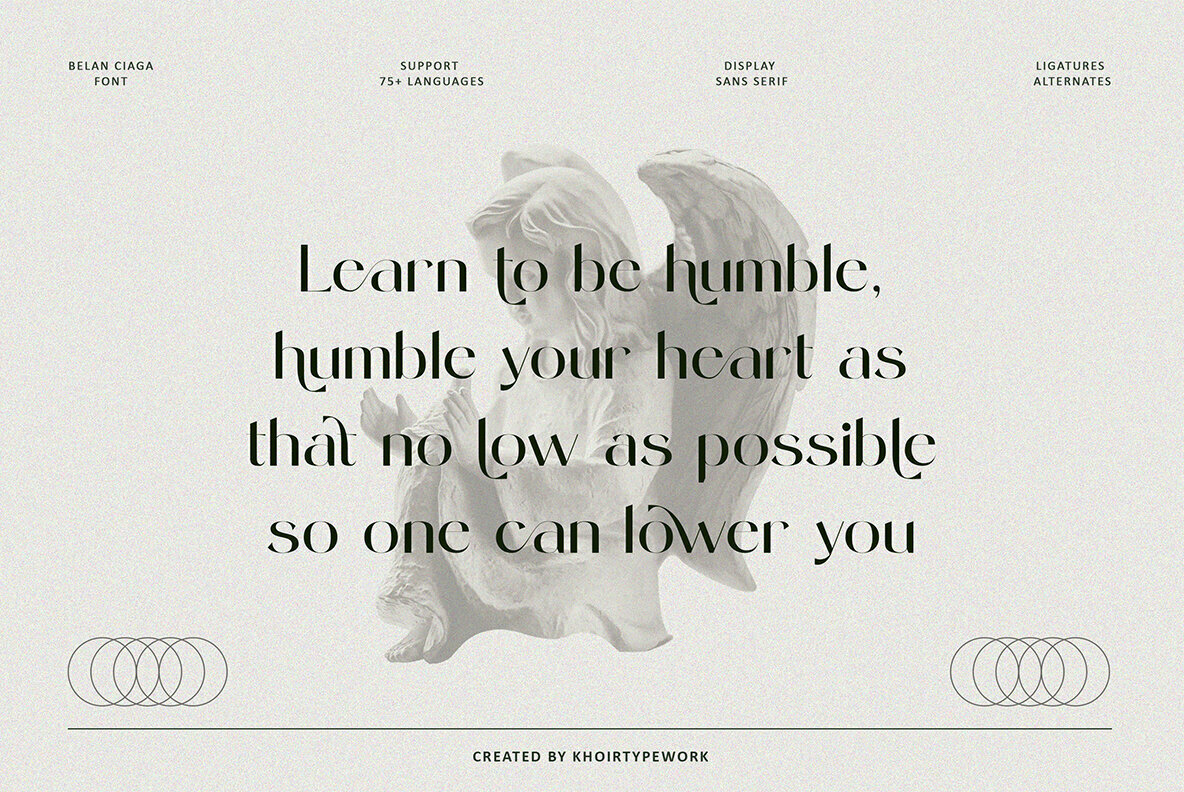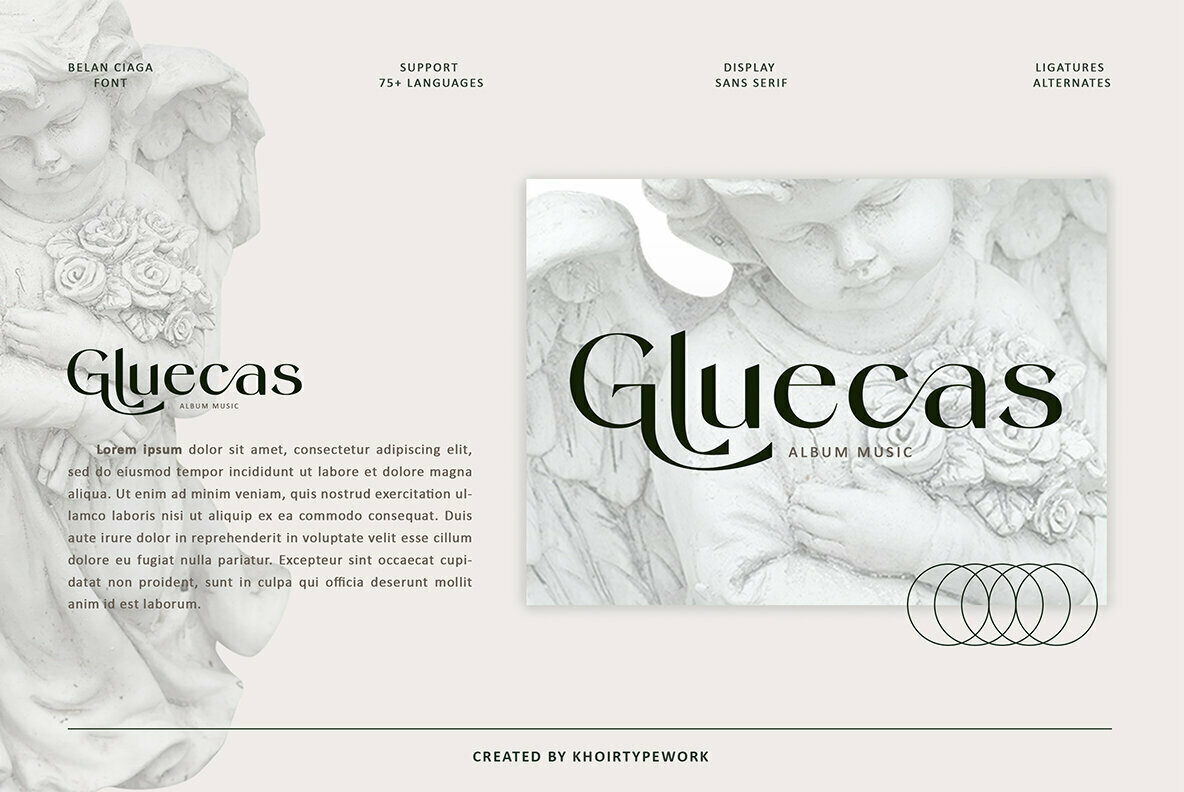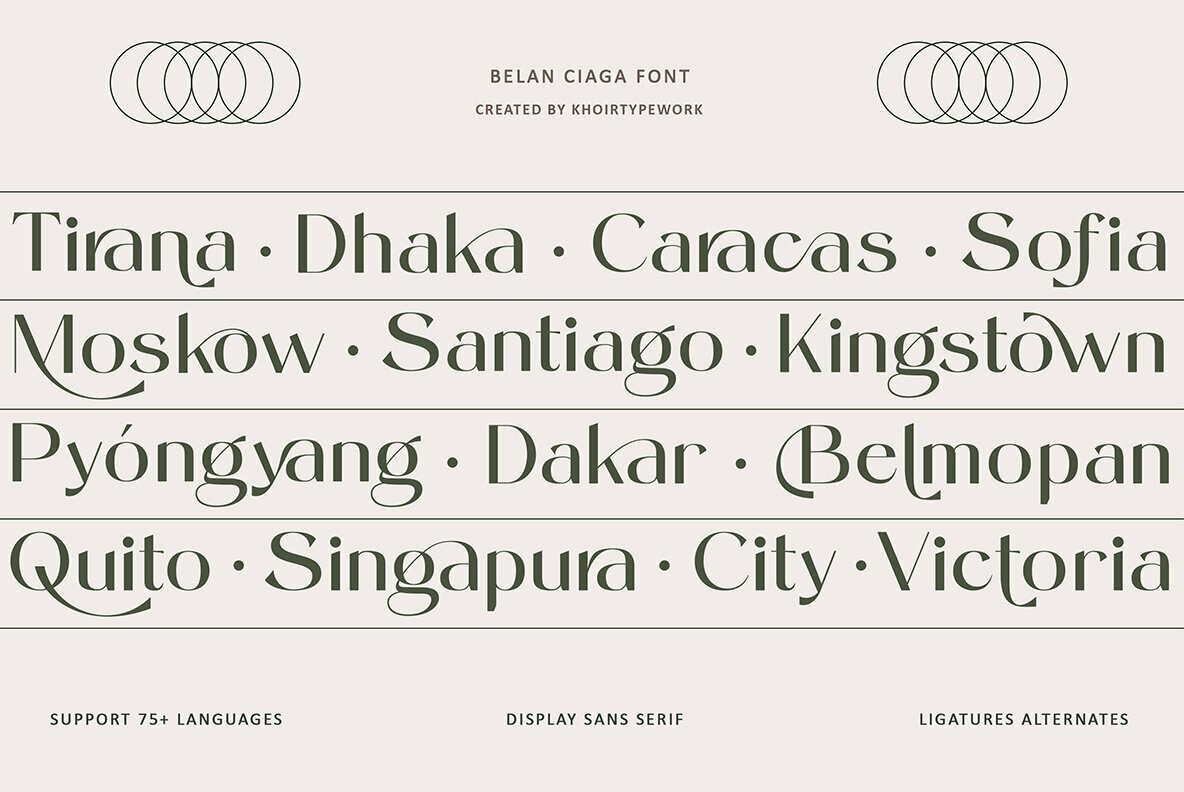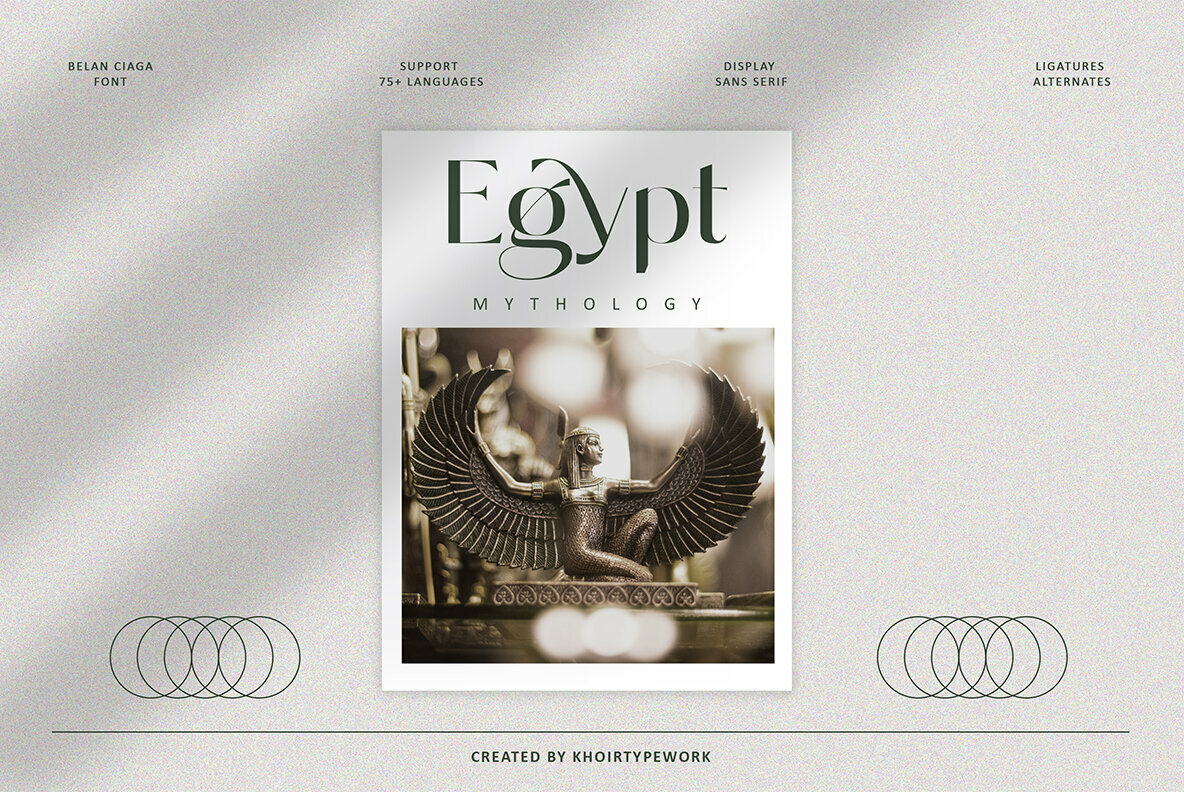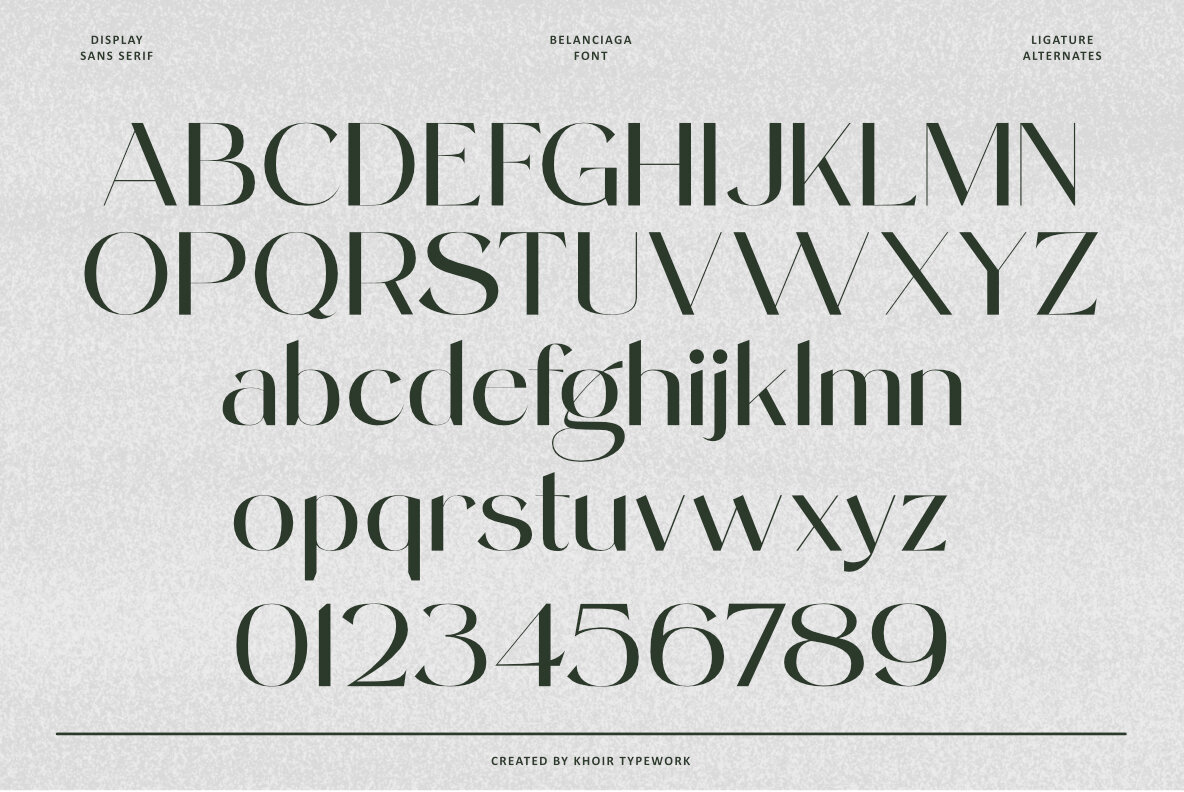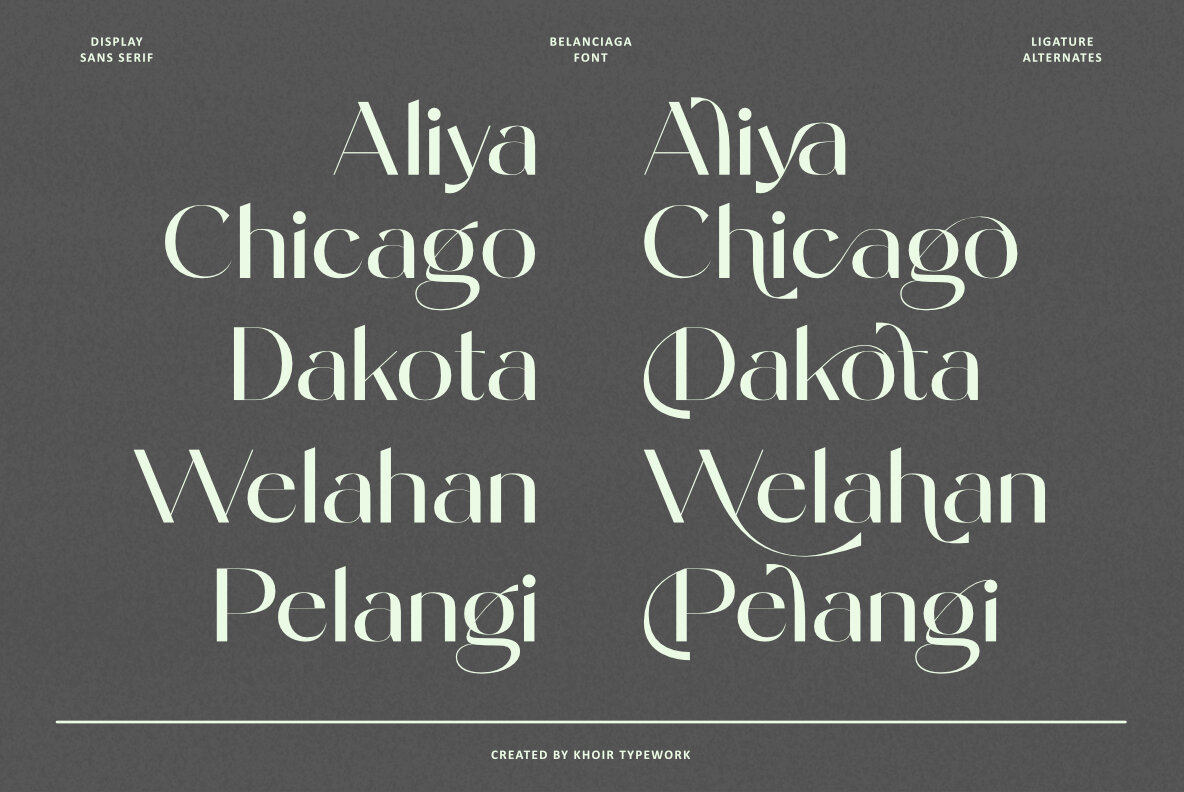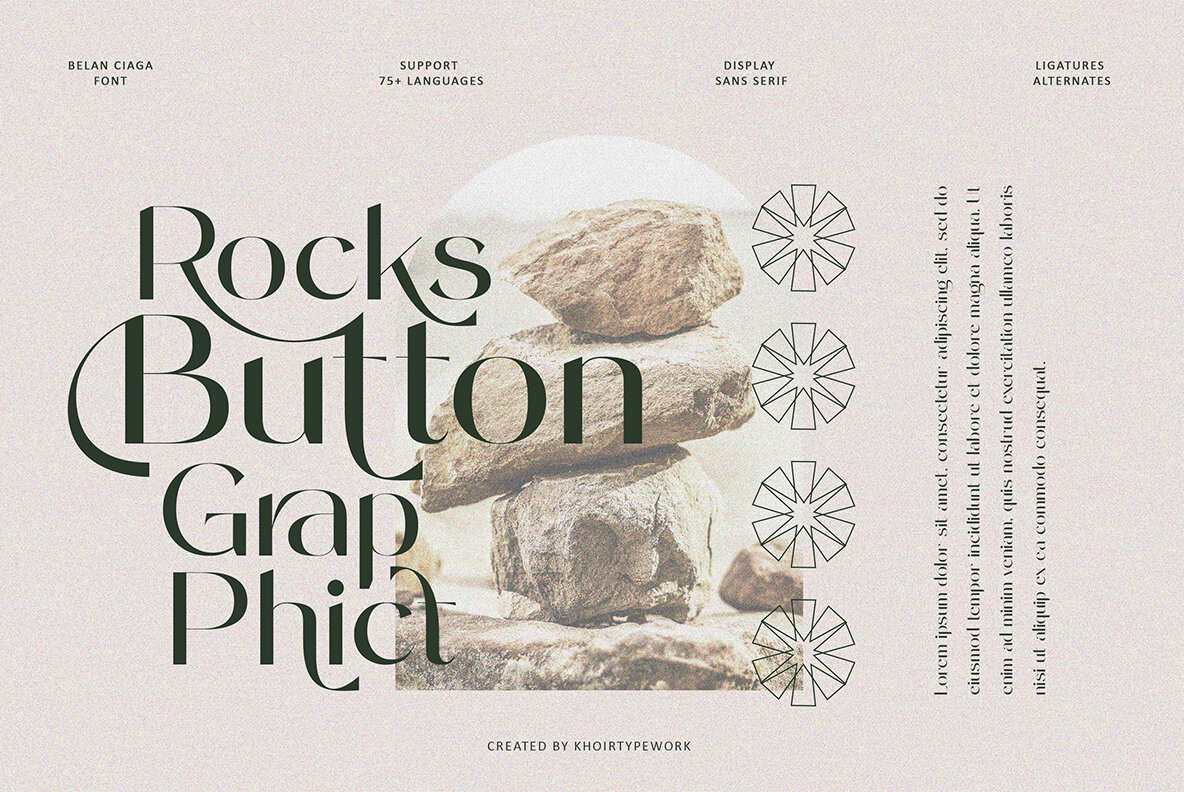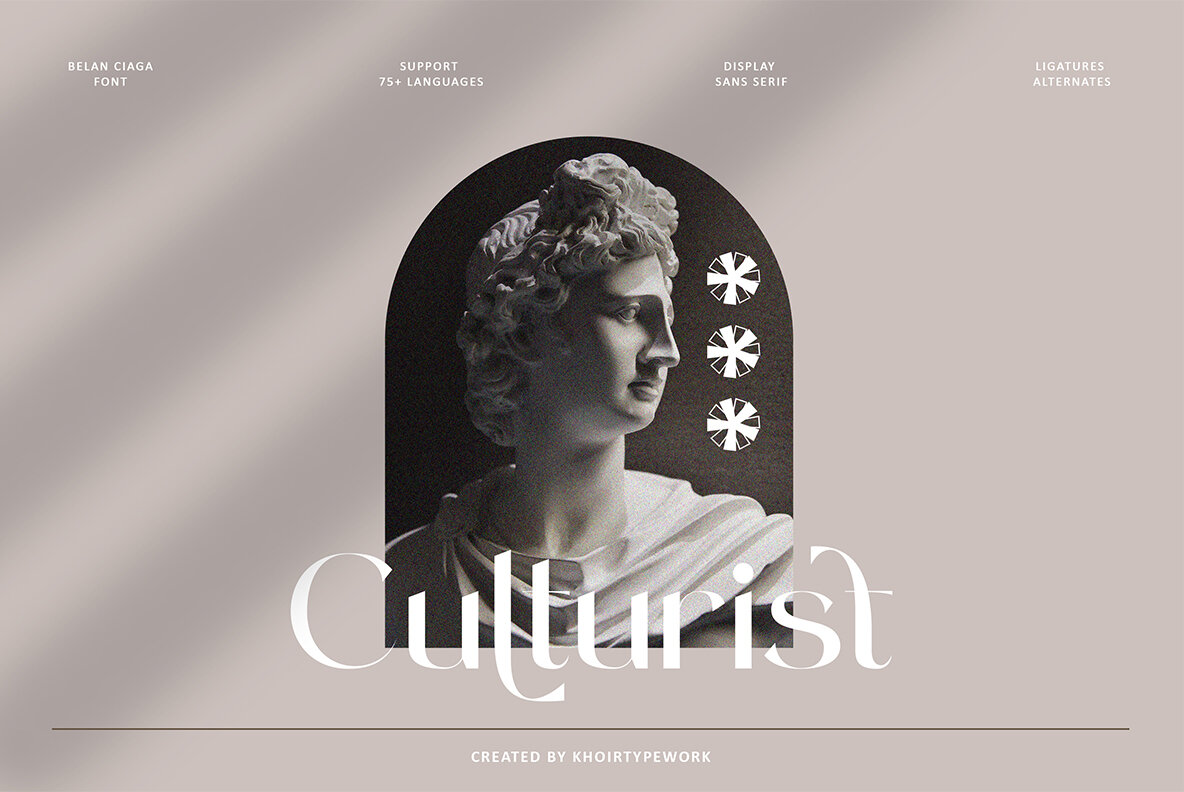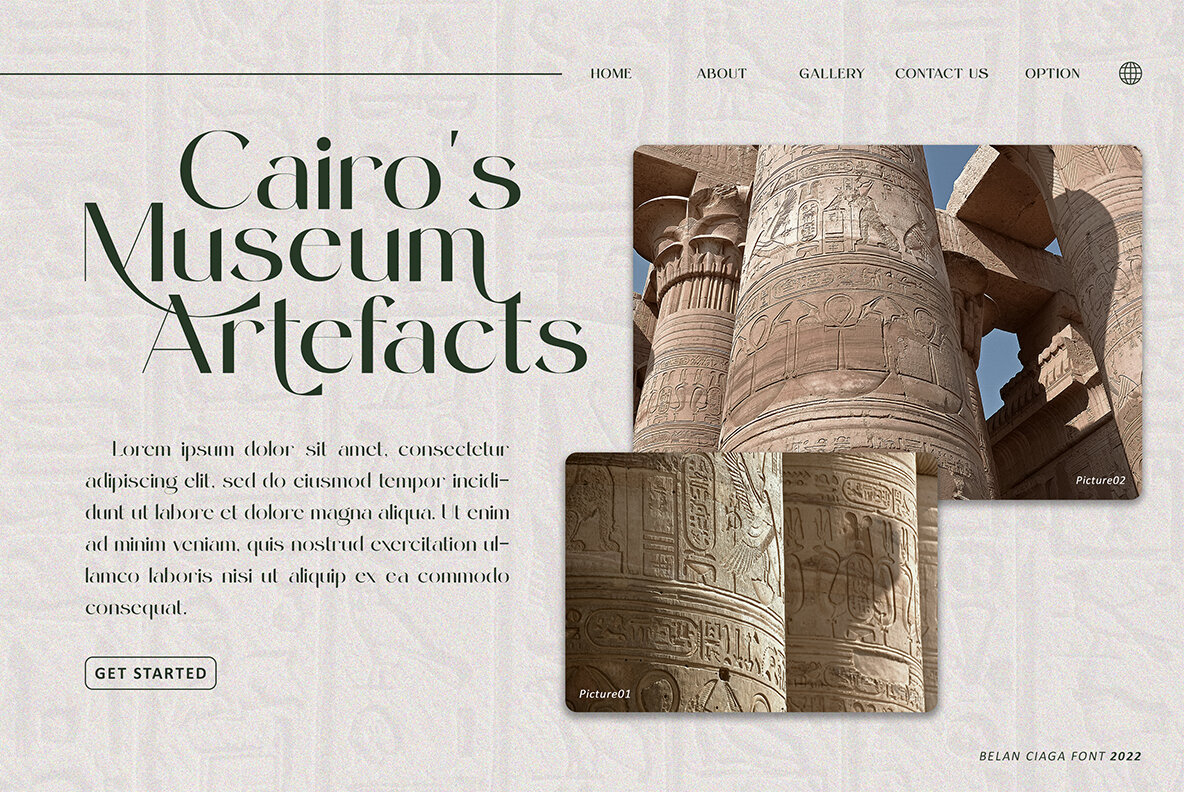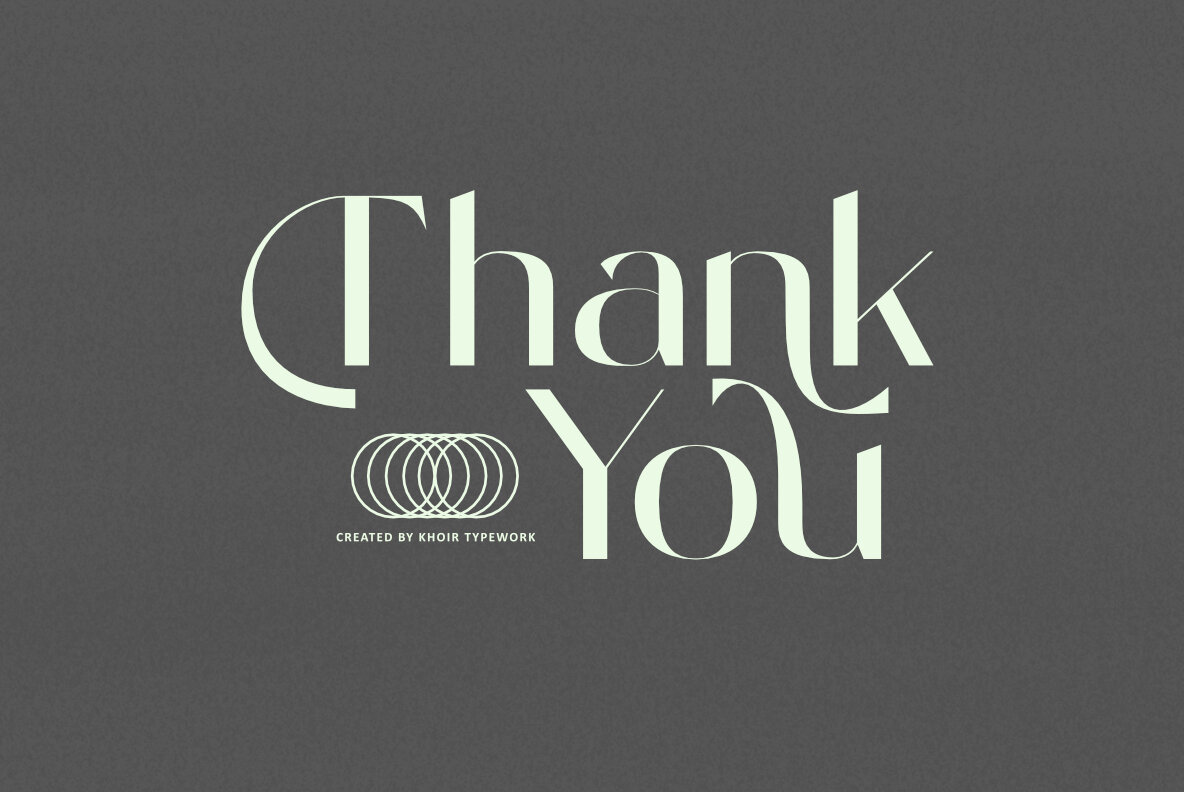
Belanciaga Font
Belanciaga
Belanciaga by Khoir Typework merges vintage charm with contemporary elegance, crafting a unique visual experience. Its design invites a sense of calmness while offering versatility through various alternatives and soft ligatures. Ideal for a wide range of design projects, Belanciaga's balance of past and present allows easy integration into your creative ventures.Belanciaga: A Retro-Modern Sans Serif Fusion